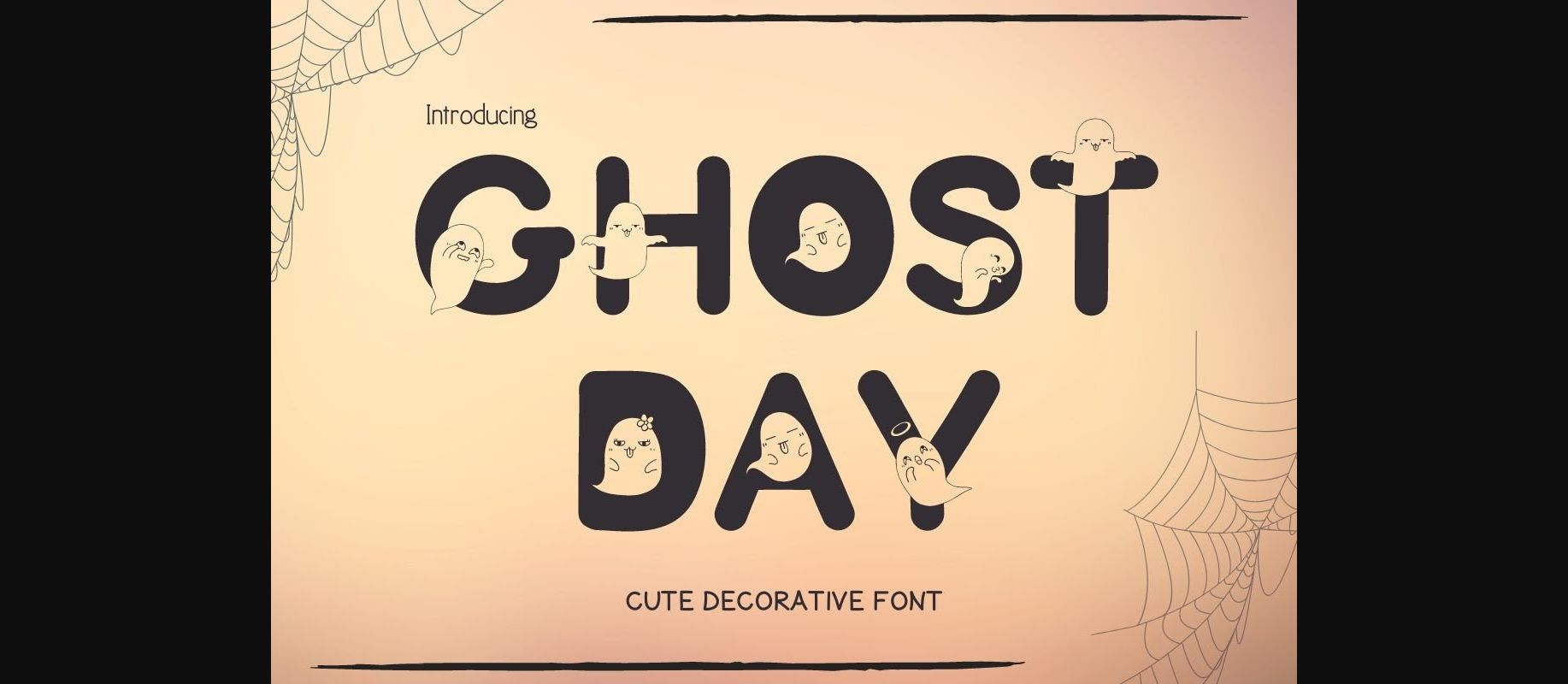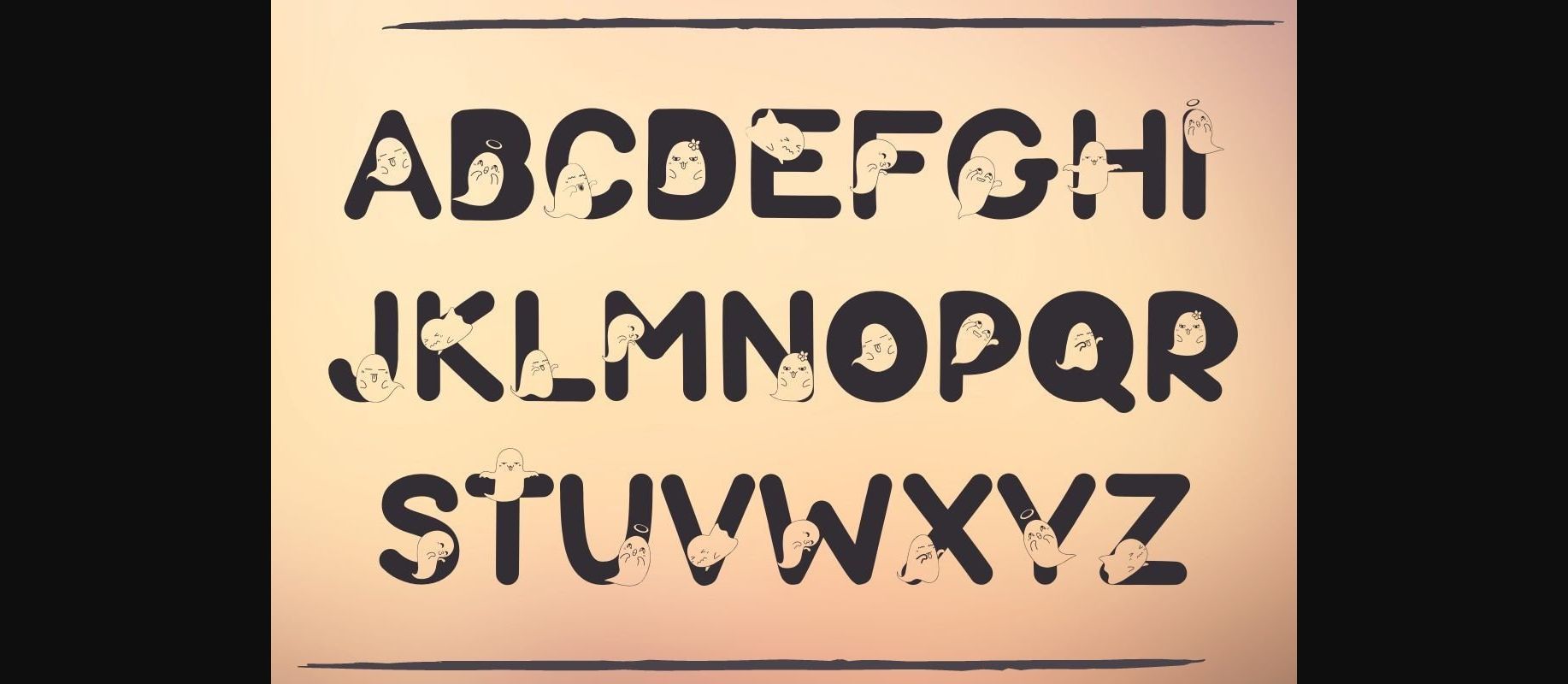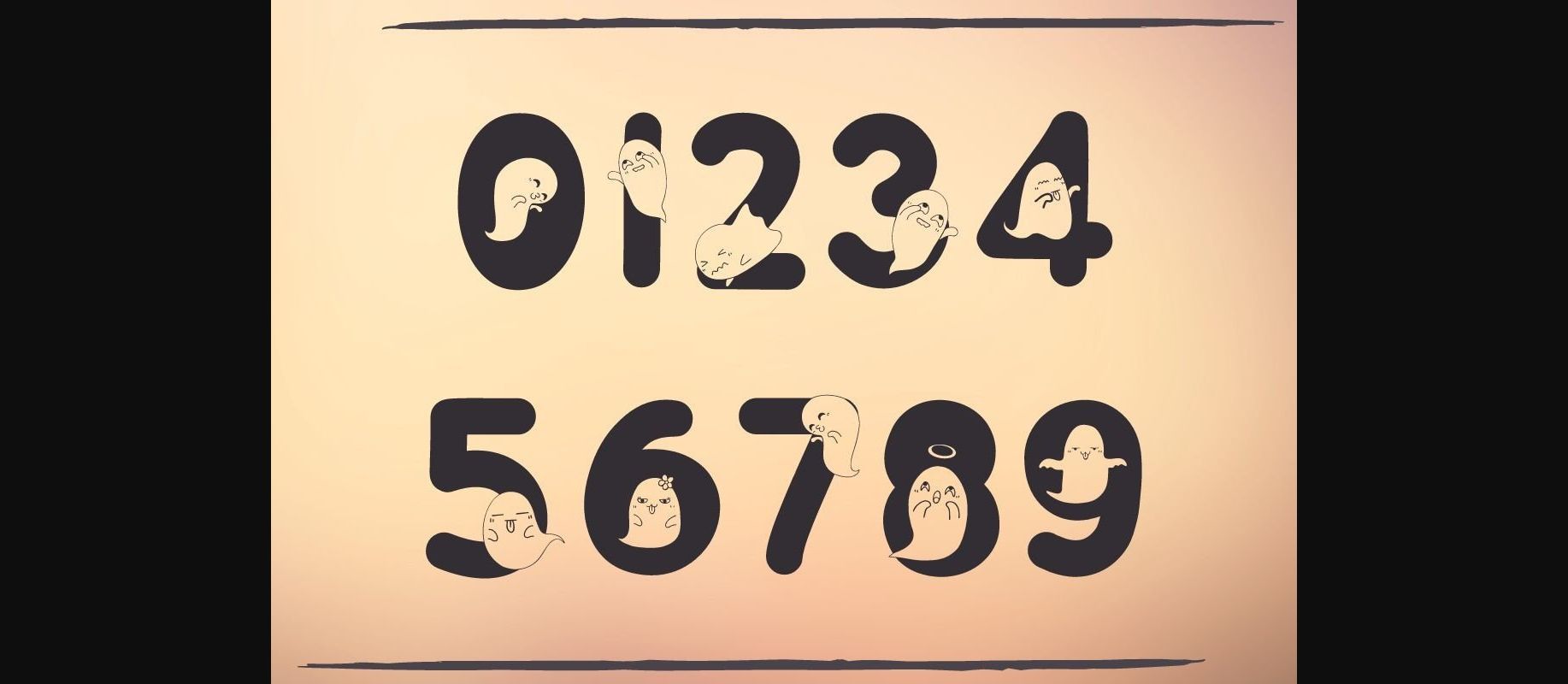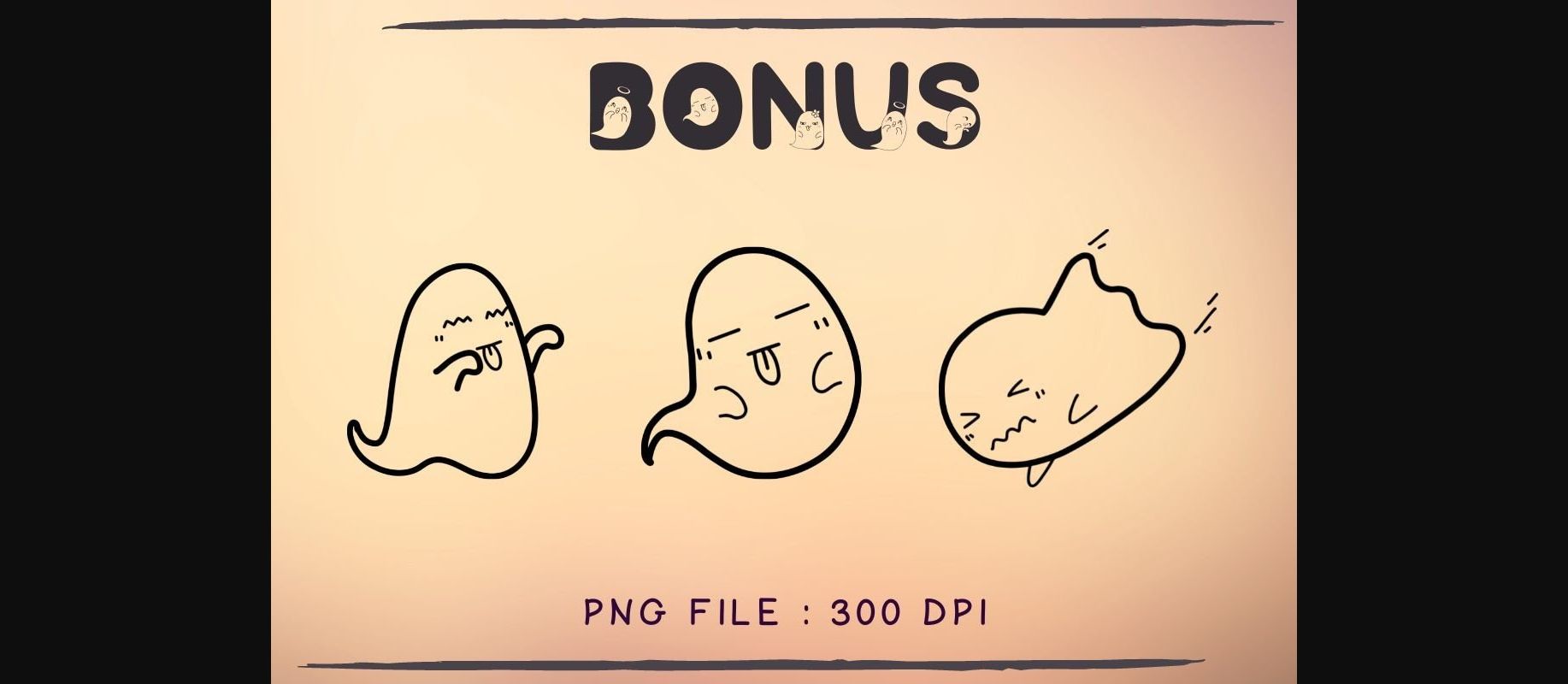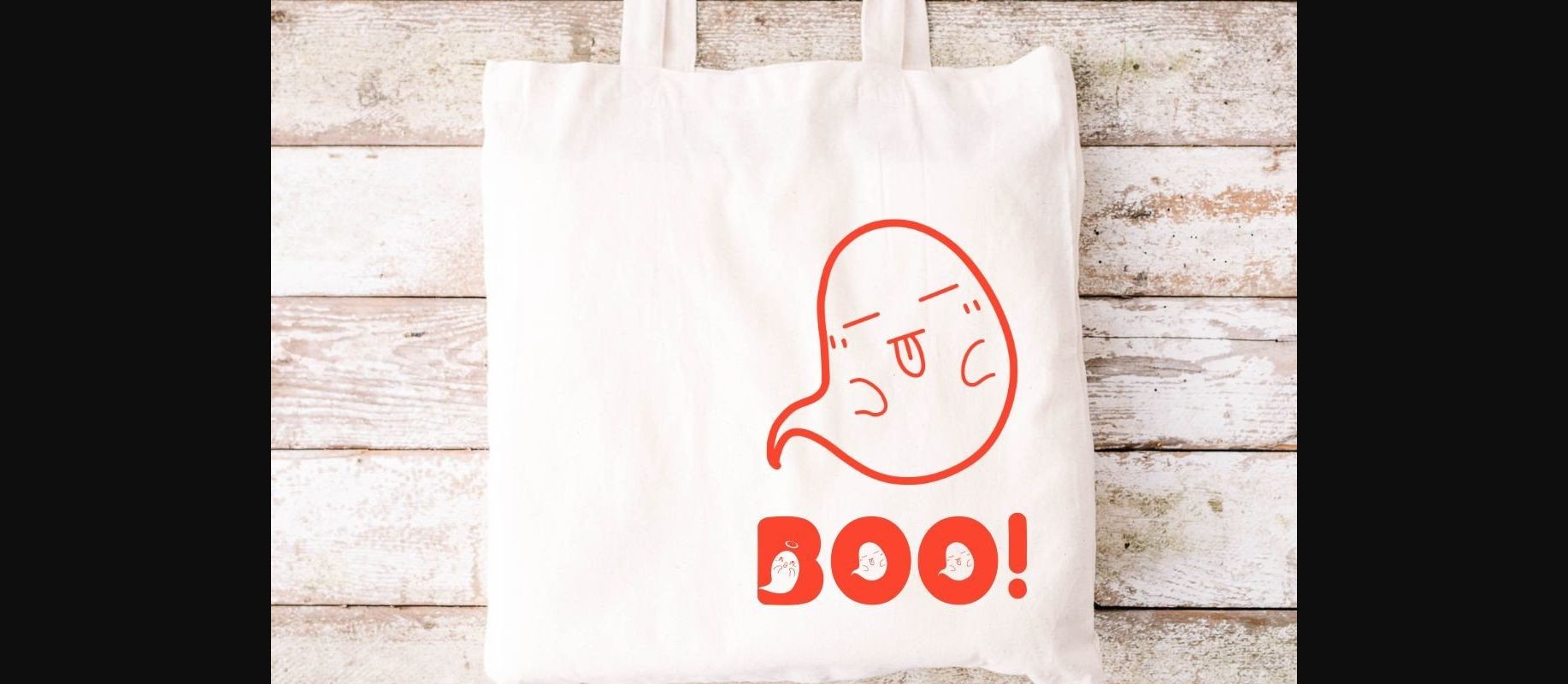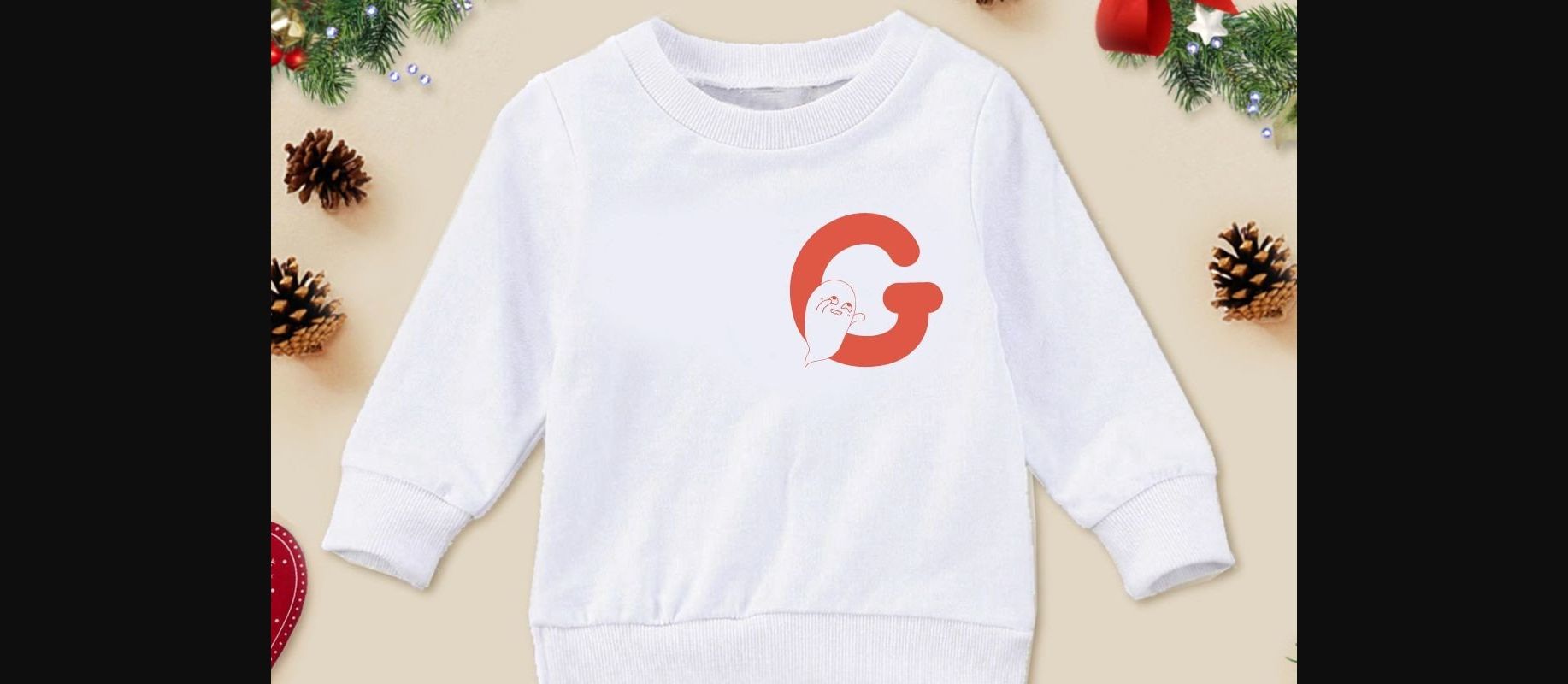
About Ghost Day Font
Ghost Day is a fun and adorable decorative font. This font uses multiple cute little ghost silhouettes combined with bold fonts. Ghost Day has a cute and quirky style, perfect for creating a wide variety of new designs such as banners, content, mugs, cards, shirts, stationery, social media posts, and more!